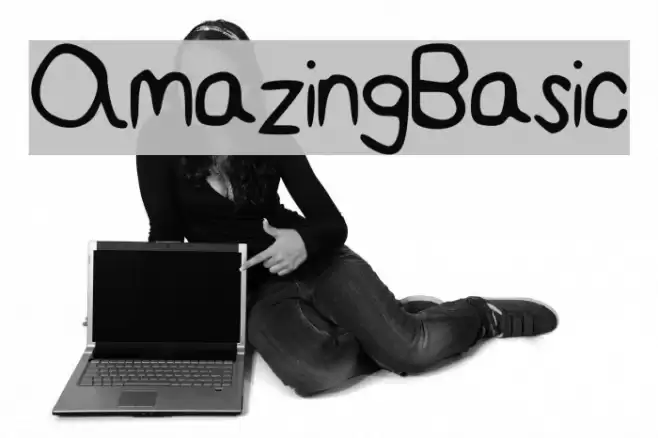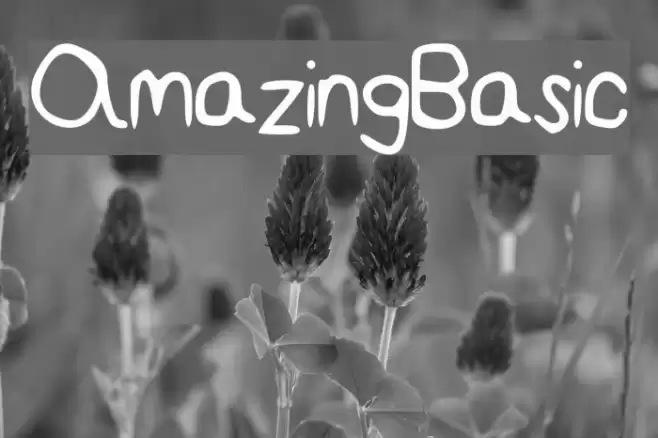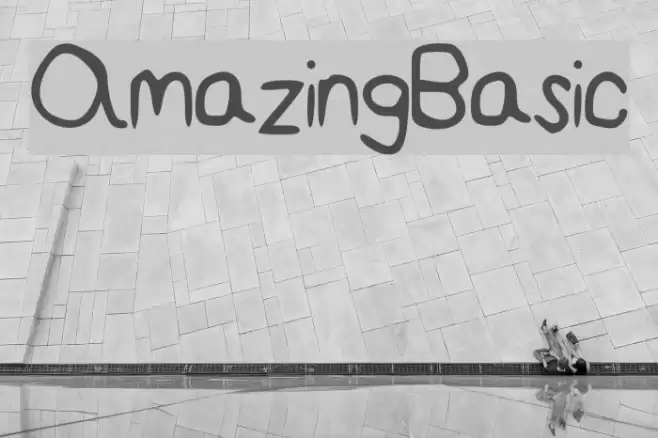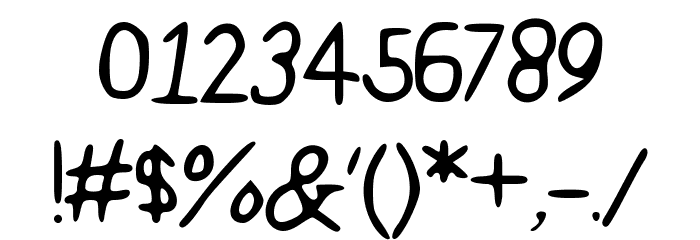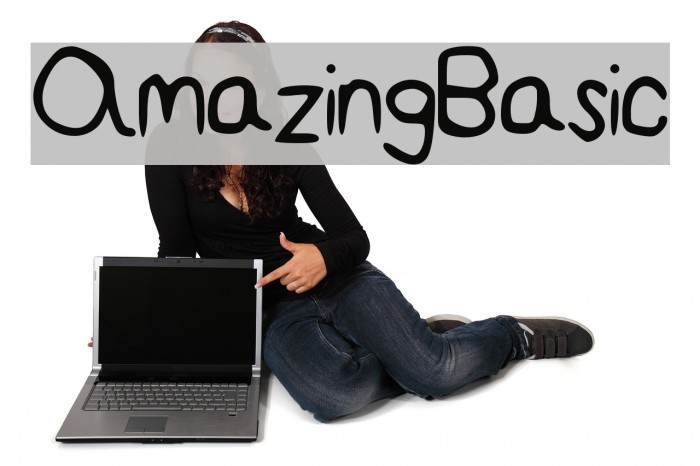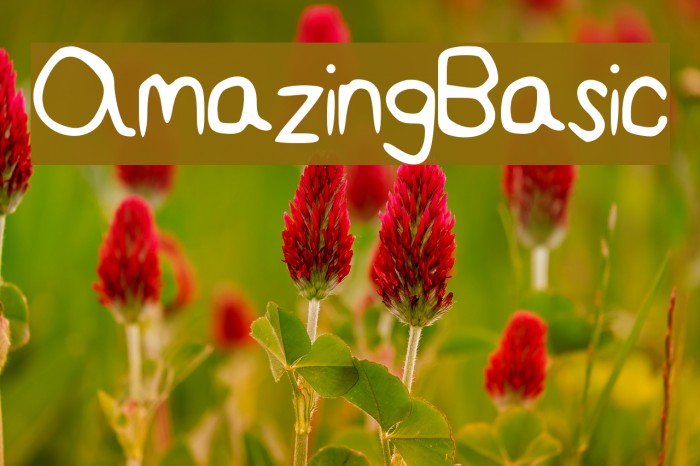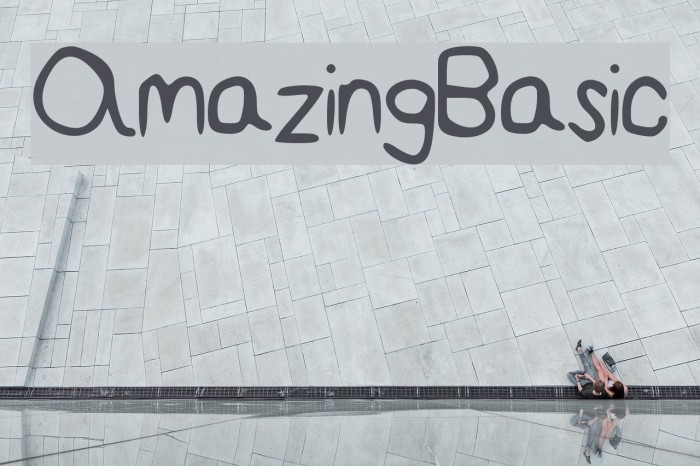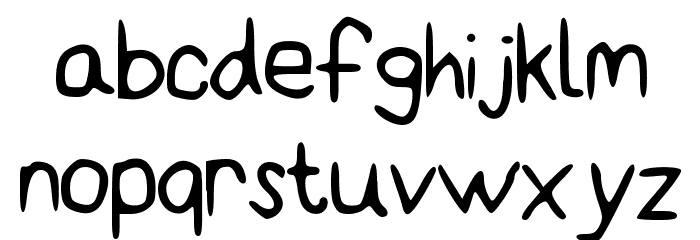
AmazingBasic Font
AmazingBasic Description
This playful and whimsical font features a handwritten style with a casual and friendly appearance. The characters are rounded and slightly irregular, giving them a natural and organic feel. The uppercase and lowercase letters maintain a consistent flow, while the numbers and special characters complement the overall design. The font's informal nature makes it suitable for creative and fun projects, adding a touch of personality and charm to any text. Its unique style is both approachable and versatile, making it a great choice for a variety of applications.
A playful, handwritten font with a casual and friendly style from Handwritten fonts.
- Proposed Projects: Ideal for children's books, greeting cards, playful branding, and casual invitations.
- Overall Style: Casual, Playful
- Use Case: Headlines, Informal text, Creative projects